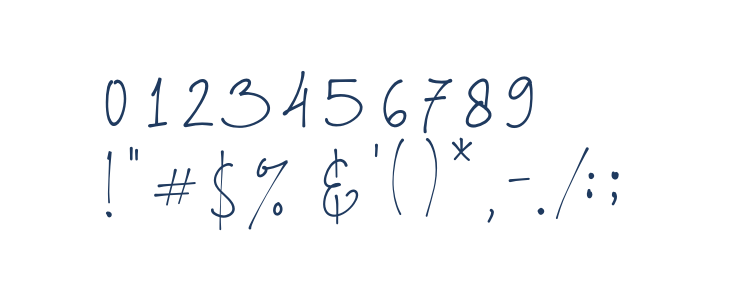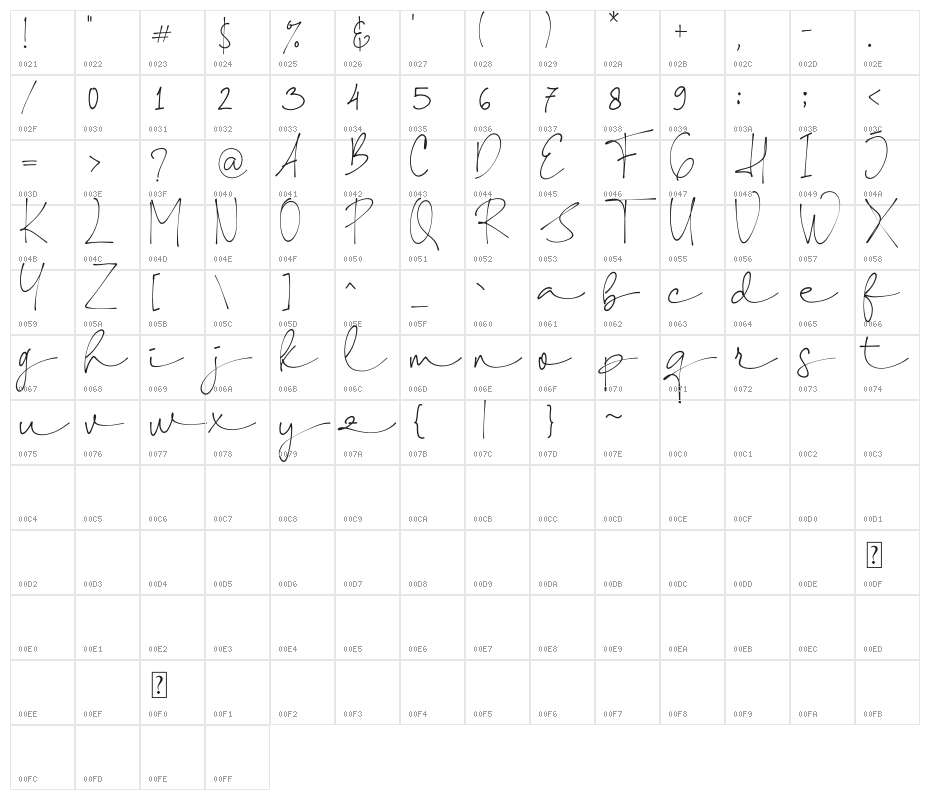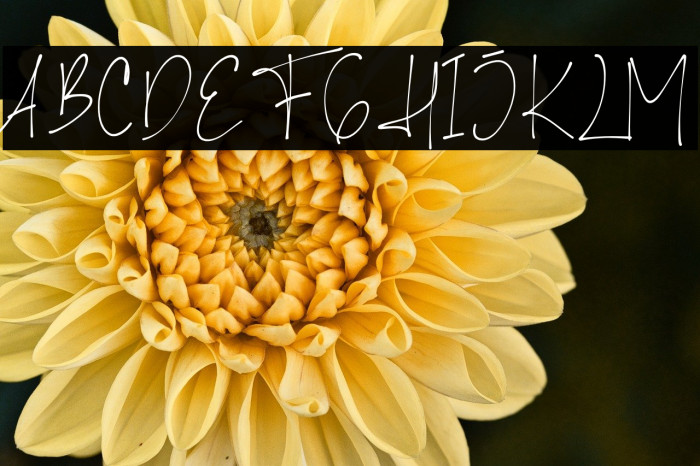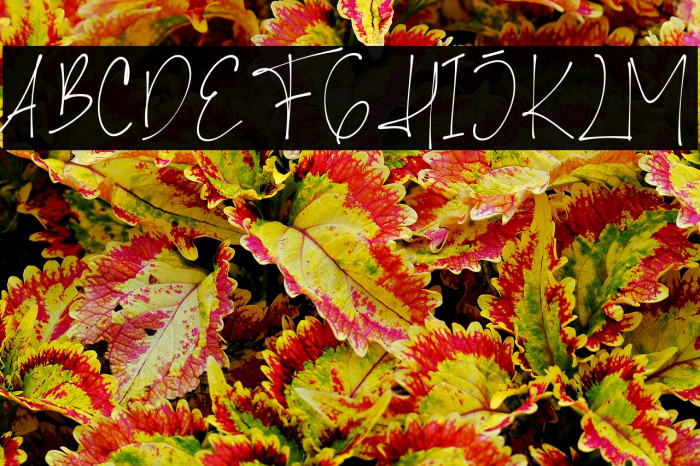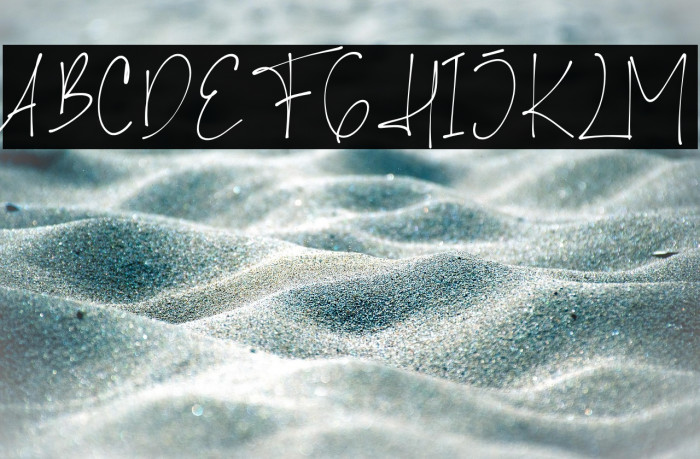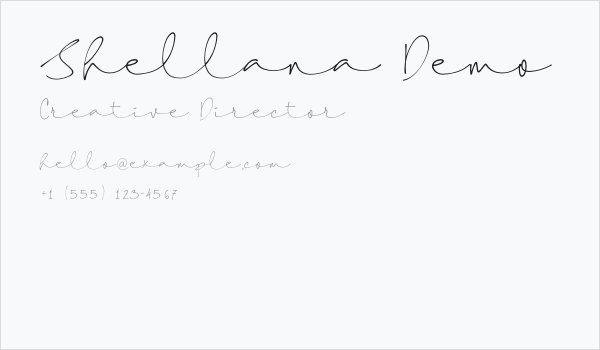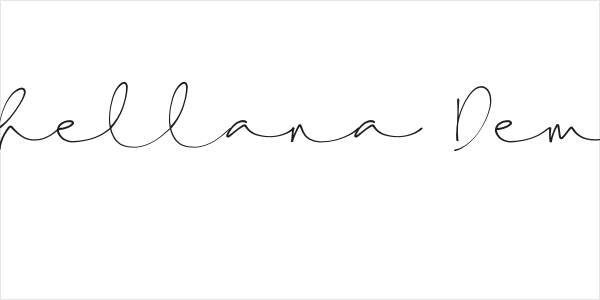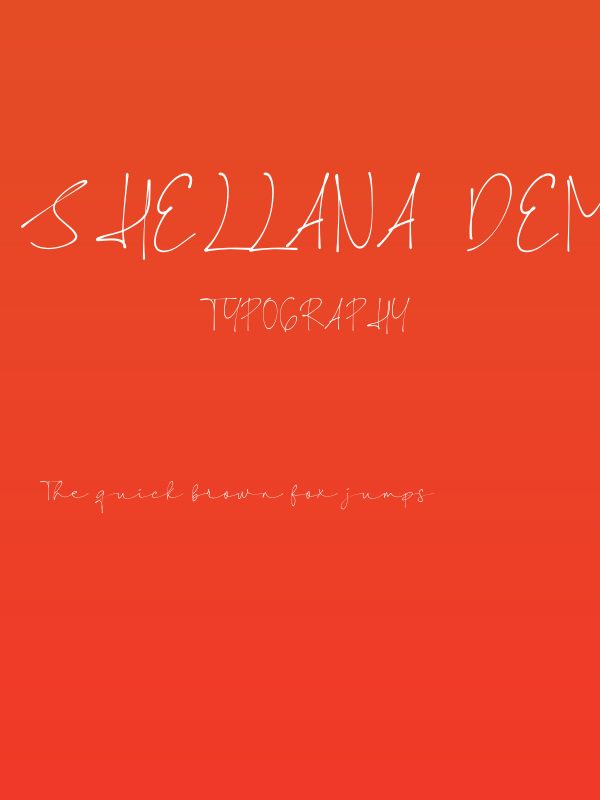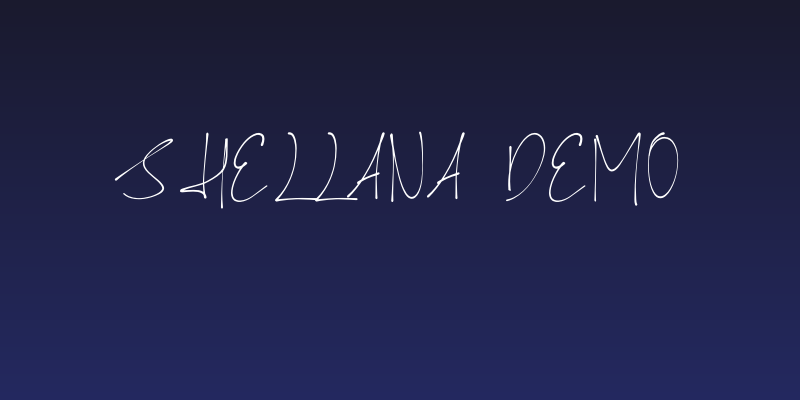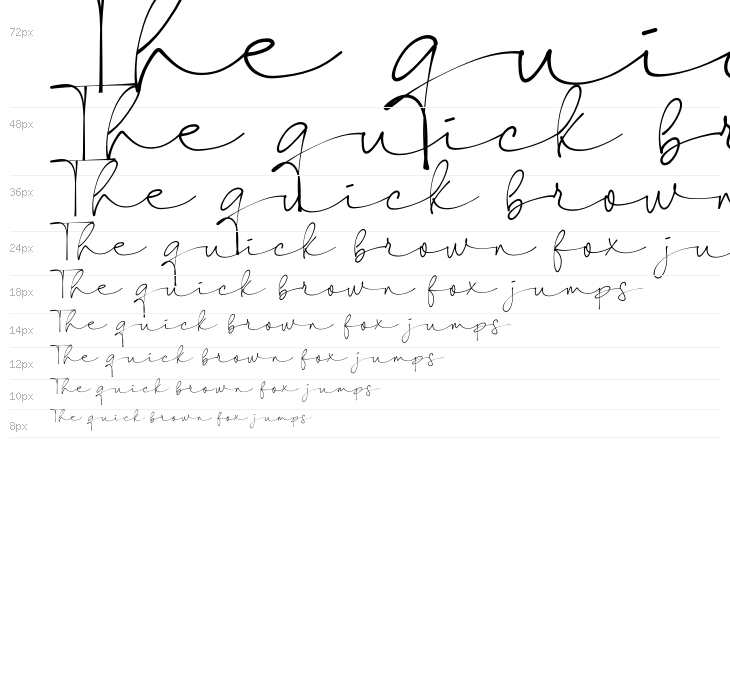
Shellana Demo Font
Shellana Demo Description
This font features a whimsical, handwritten style with a playful and casual appearance. The uppercase letters are tall and slightly slanted, giving a sense of movement and fluidity. The lowercase letters are more connected, resembling cursive handwriting, which adds to the informal and personal touch. The numerals are bold and slightly rounded, maintaining the playful theme. Special characters are creatively designed, fitting seamlessly with the overall style. The font's thin strokes and varying line thickness contribute to its dynamic and lively character, making it suitable for creative and artistic projects.
Overall StyleCasual, Playful
Use CaseLogos, Invitations, Artistic projects
Proposed ProjectsIdeal for greeting cards, invitations, personal branding, and artistic projects.